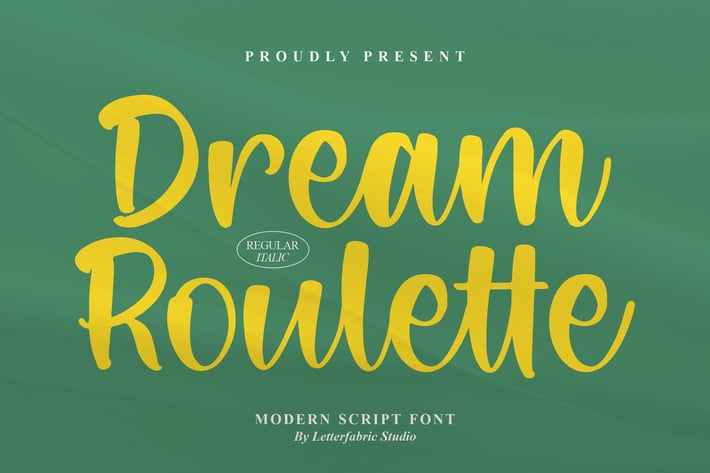
Dream Roulette Modern Script Font
Dream Roulette is a vibrant and confident modern script font that blends casual brush strokes with smooth, contemporary curves. Designed to stand out, it brings an energetic and optimistic vibe to your creative projects — ideal for expressive branding and social media designs.
Hand-brushed modern script style
Includes Regular and Italic versions
Smooth texture with natural ink flow
Perfect balance between playful and professional aesthetics
Branding and logo design
Lifestyle or travel posters
Social media posts and quotes
Product packaging and advertising materials
* Magazine layouts and creative campaigns
Add a bold, modern flair to your words — Dream Roulette is where creativity meets confidence.